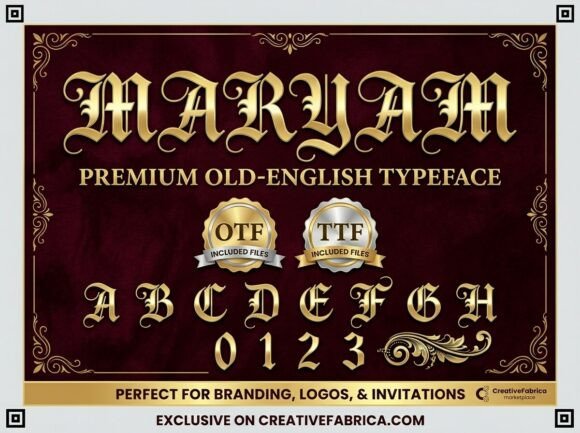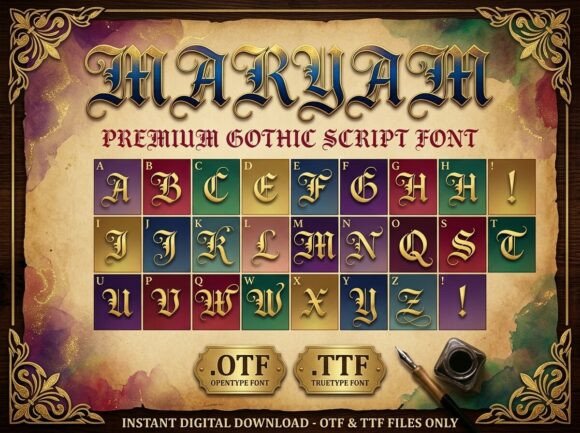
Introduction to Maryam Font
As a designer, there’s nothing quite like the thrill of discovering a new font that perfectly captures the essence of a creative project. It’s that moment when the perfect combination of style and substance comes together, elevating your work from ordinary to extraordinary. For many, that moment arrives with the Maryam Font, a premium Old-English typeface that exudes timeless authority and classical prestige.
Whether you’re crafting a luxury brand identity, designing a vintage-inspired invitation, or creating a certificate that demands respect, the Maryam Font is an exceptional selection. Its sharp, chiseled edges and stunning gold-leaf metallic finish evoke the grandeur of medieval heritage, while its modern polish ensures it remains relevant in today’s design landscape.
As a valuable resource for designers, the Maryam Font offers a bold, authoritative voice that’s hard to ignore. With its high-quality design and transparent background, it’s the perfect addition to any creative project, whether you’re working on a free download or a high-end commercial design.
Key Features of Maryam Font
- Unique, elegant font style with a transparent background, perfect for adding a touch of sophistication to designs.
- Includes a comprehensive character set, supporting multiple languages and providing a wide range of creative possibilities.
Honest Review: Maryam Font
I recently came across the Maryam Font, and I must say it’s been a delightful addition to my design resources. As a designer, I’m always on the lookout for high-quality fonts that can elevate my creative projects.
- ✨ The Maryam Font has a beautiful, elegant design that works well for both digital and print media.
- ✨ The font is highly customizable, making it an excellent choice for designers who want to add a personal touch to their projects.
- ✨ The transparent background feature allows for seamless integration with any design element.
- ⚠️ The font may not be suitable for projects that require bold, eye-catching typography.
- ⚠️ The font family is relatively small, so you may not have as many variations to choose from.
Tips for Getting the Most Out of the Maryam Font
For the best results, use the Maryam Font on a high-quality image with a transparent background. This will allow the font to stand out and add a professional touch to your design.
Common Use Cases for the Maryam Font
The Maryam Font is commonly used in a variety of design projects, including logos, social media graphics, presentations, and documents. It’s a versatile font that can be used in a range of creative contexts.